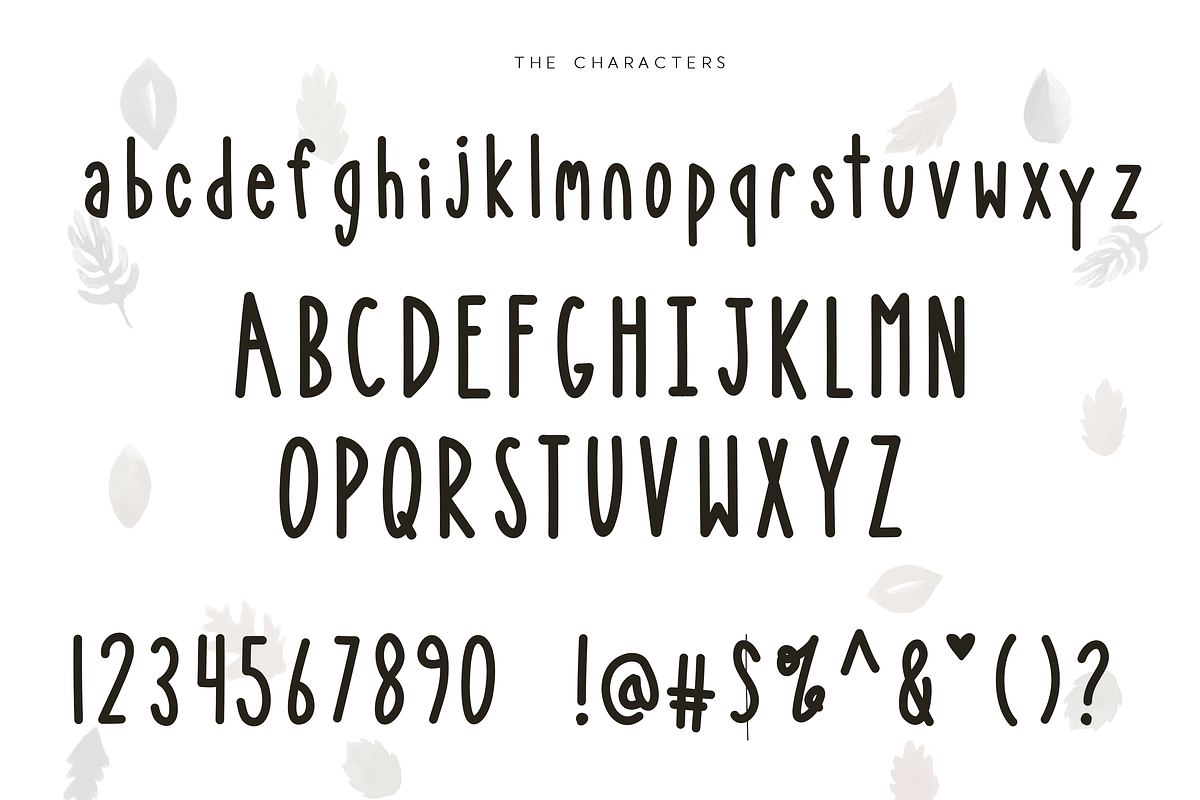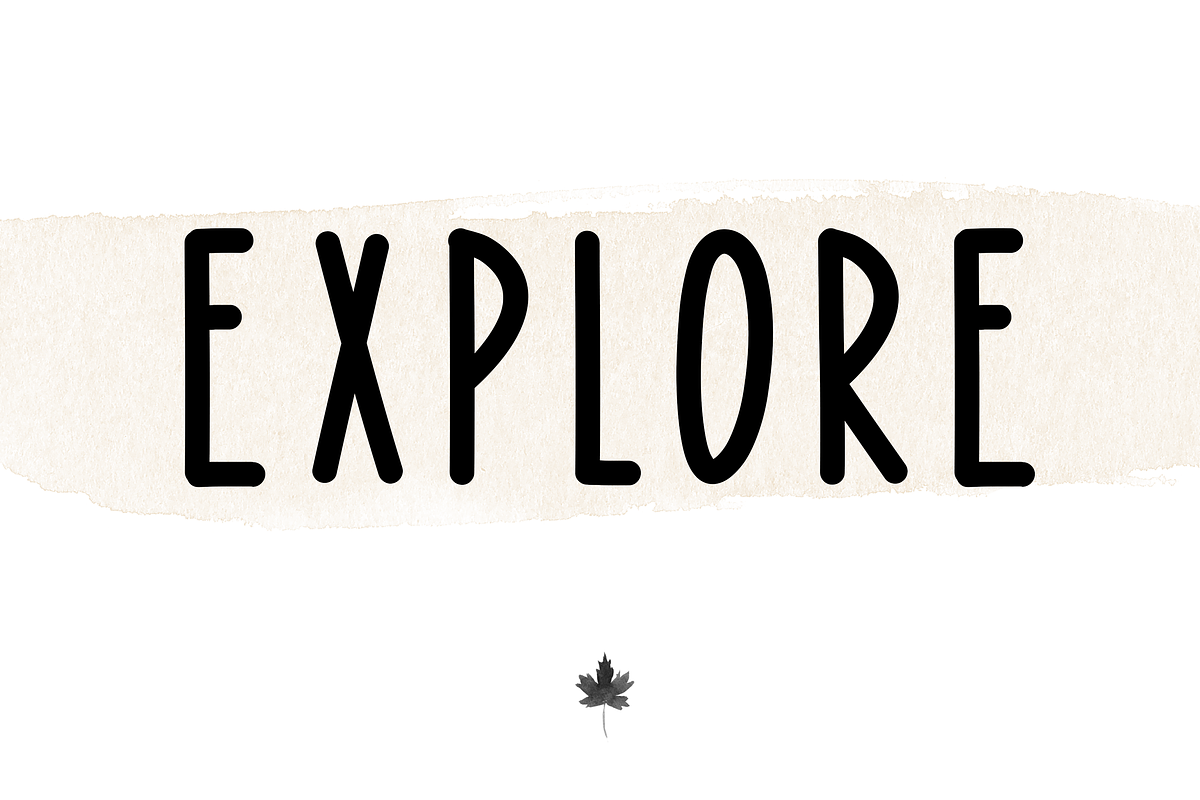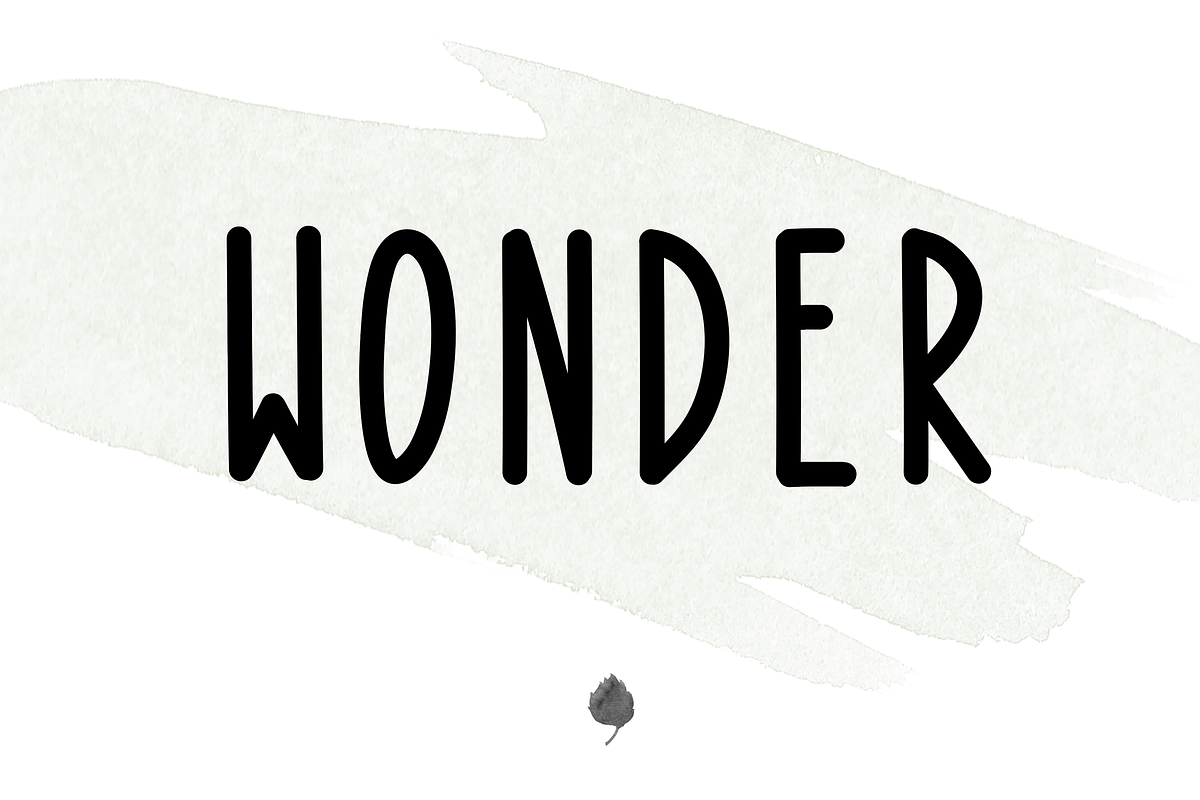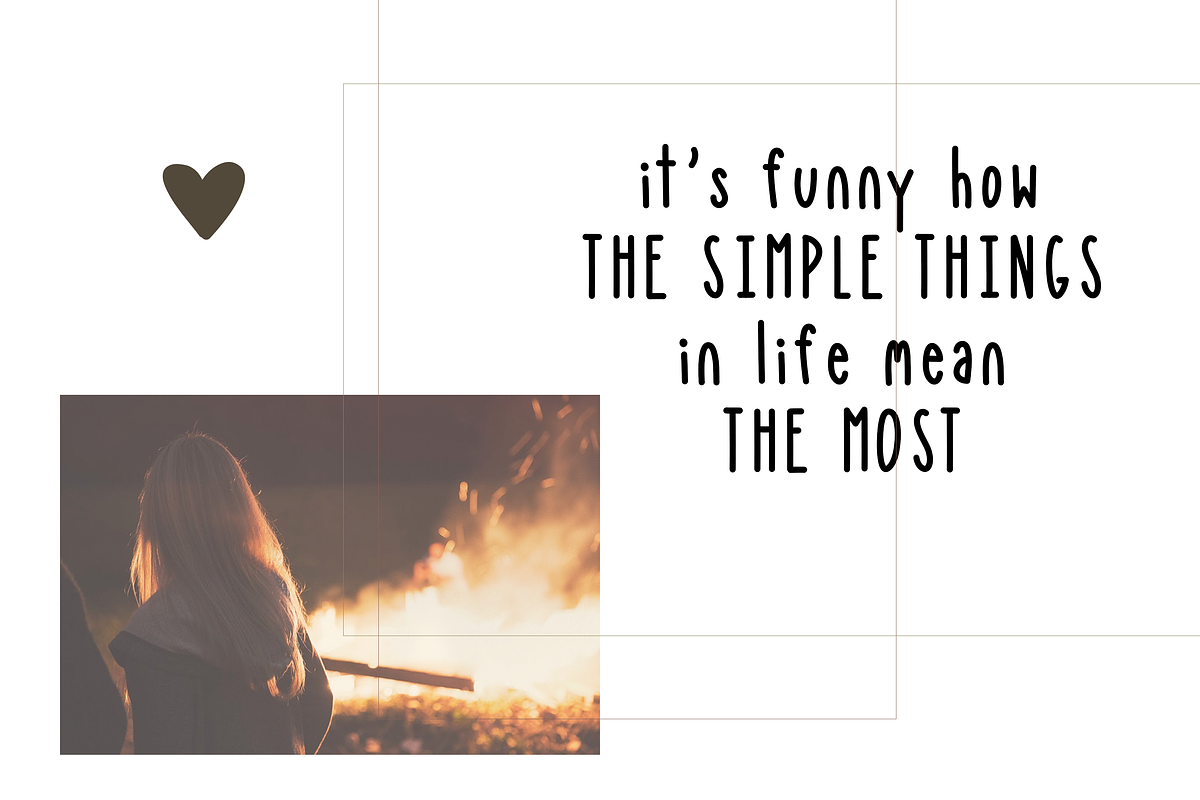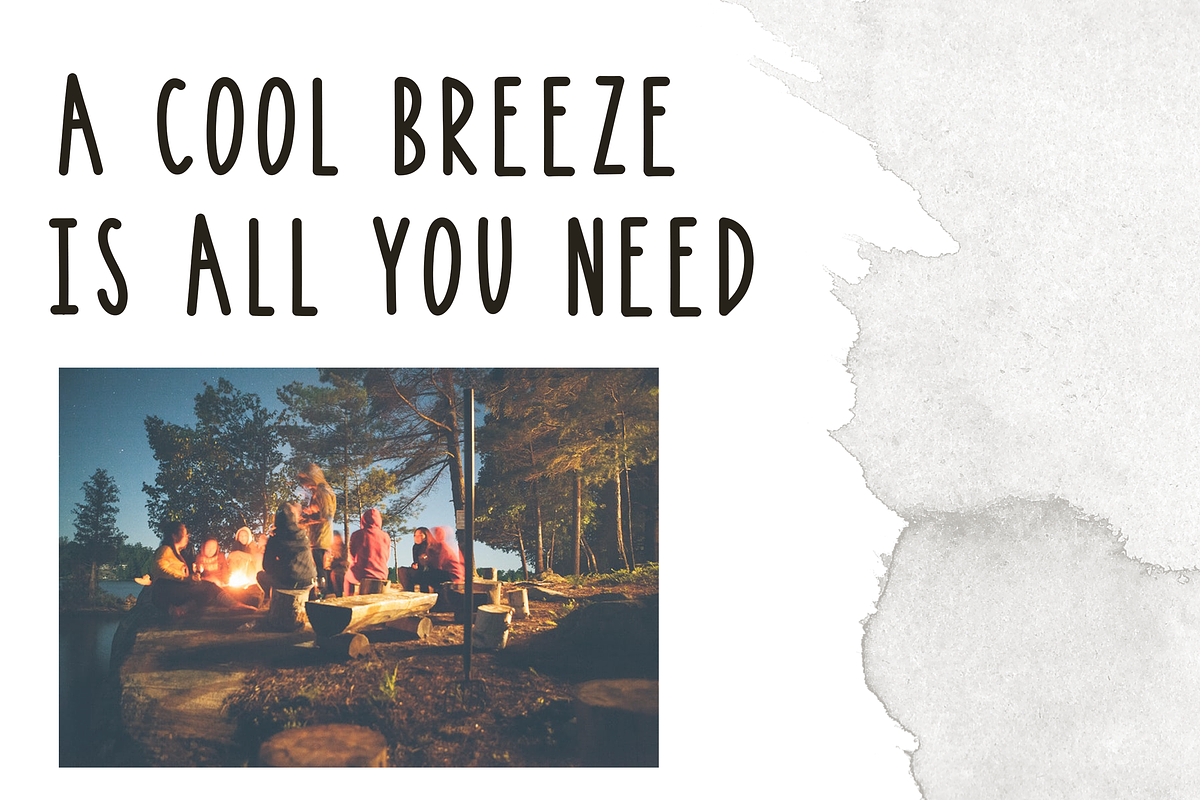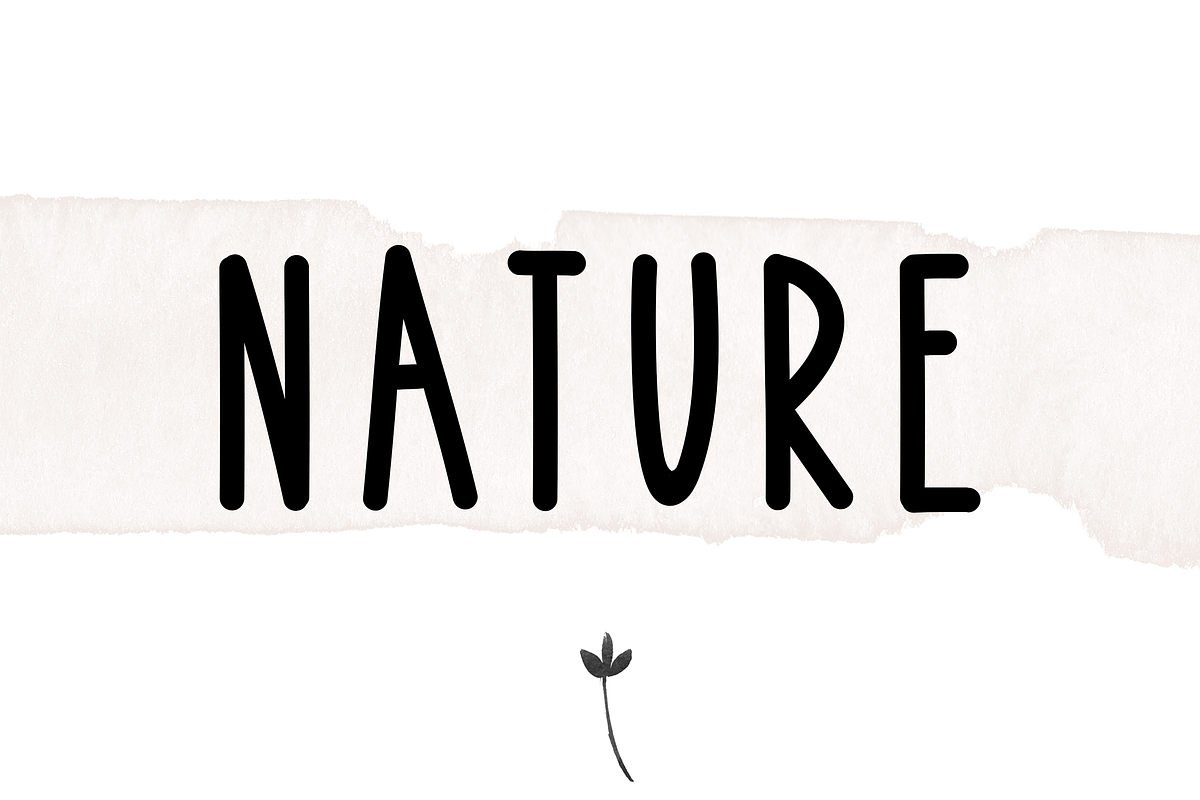
Bonfire - A Bold Handwritten Font
Bonfire is a bold and tall handwritten font. This font is perfect for quotes, headings, blogs, logos, invitations and more! It is especially useful for children's designs, tee shirts, mugs and posters!
Bonfire - A Bold Handwritten Font by KA Designs fits naturally into Branding, posters, packaging, typography.